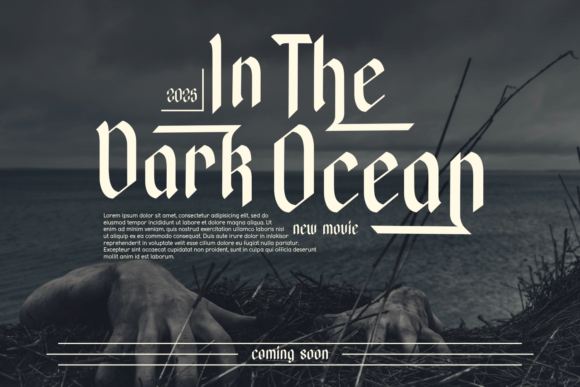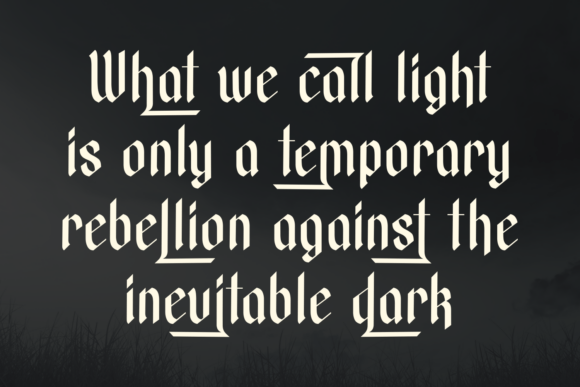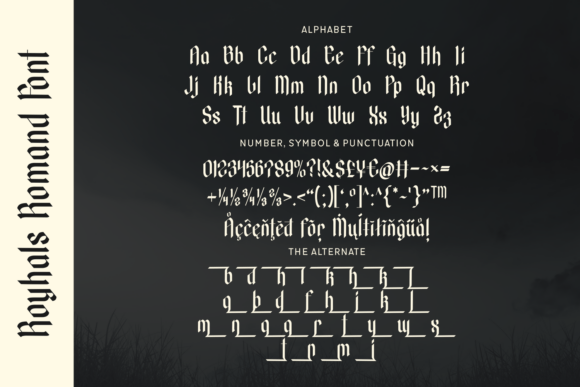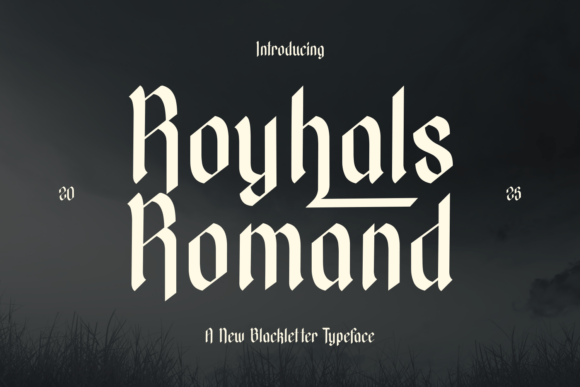
Introduction to Royhals Romand Font
A promotional image for β€œRoyhals Romand,” a new blackletter typeface from 2025.
The historical and somewhat somber feel is perfect for the early autumn season, making this traditional gothic font an excellent choice for fantasy themes, historical projects, or Halloween designs .
Key Features of Royhals Romand Font